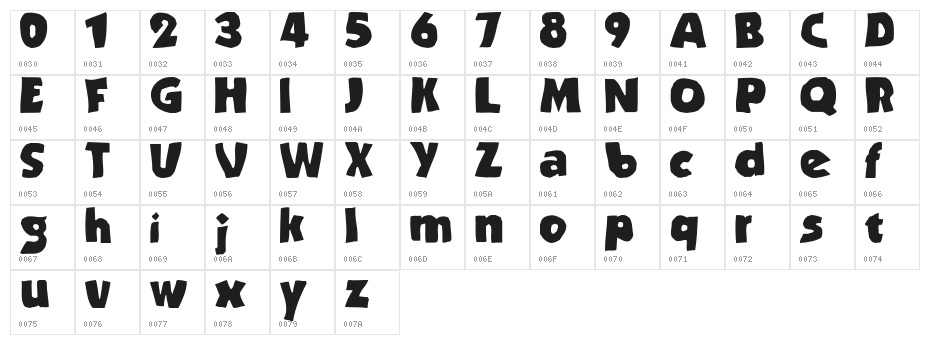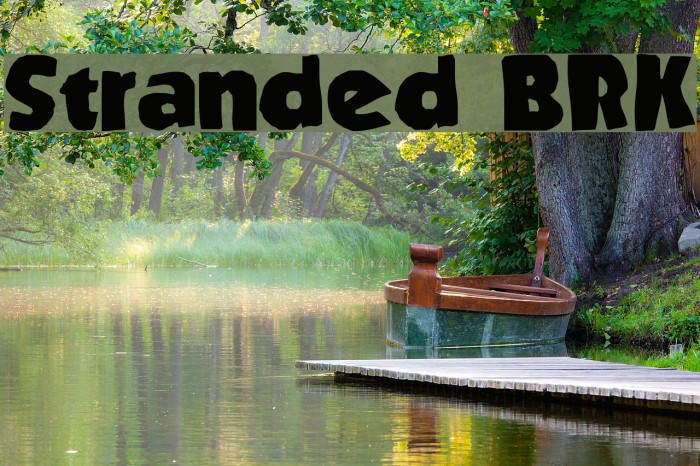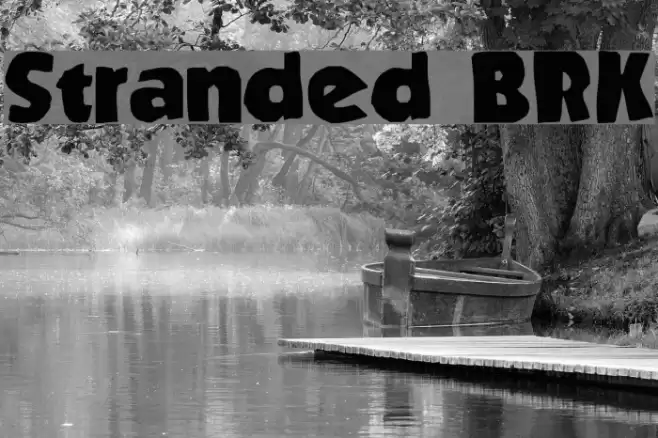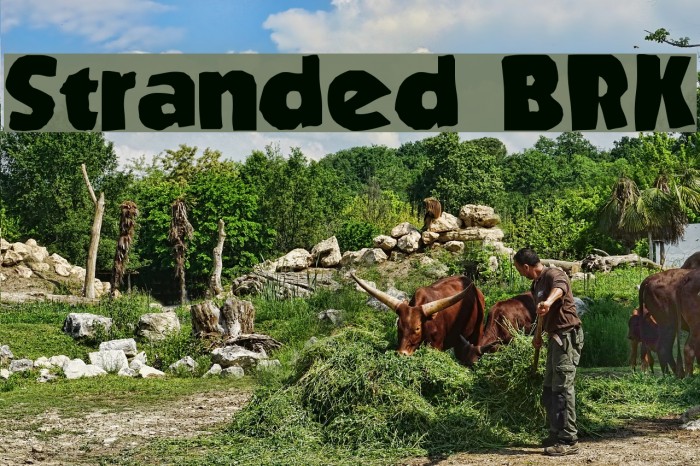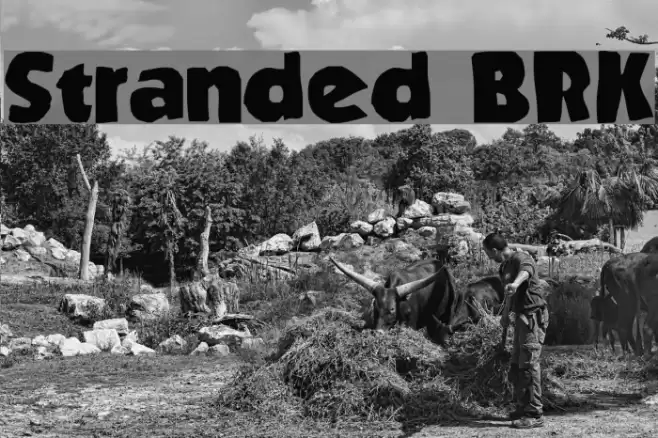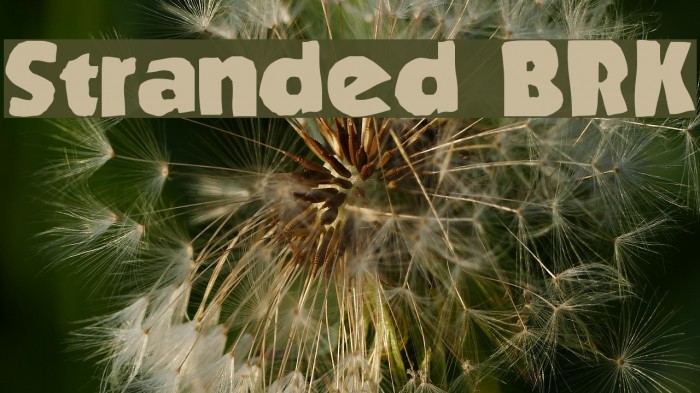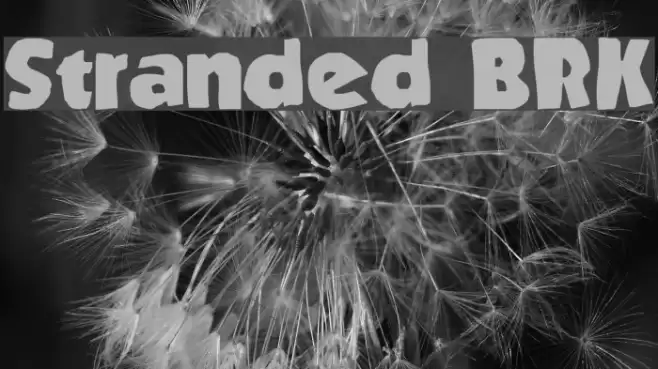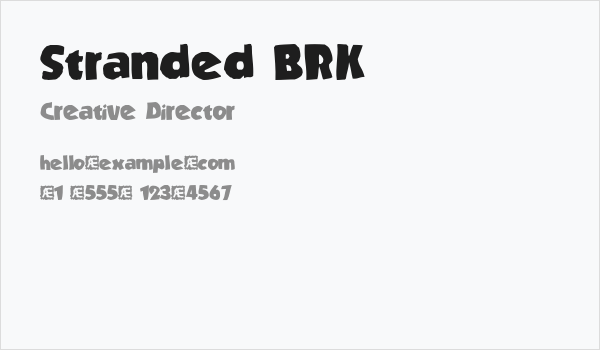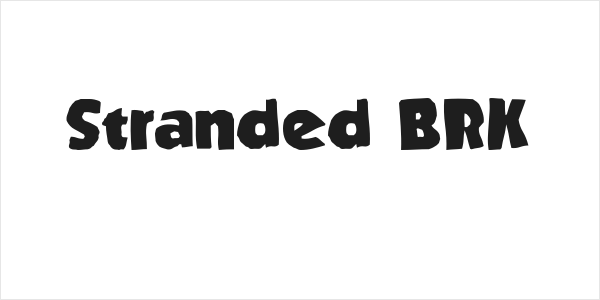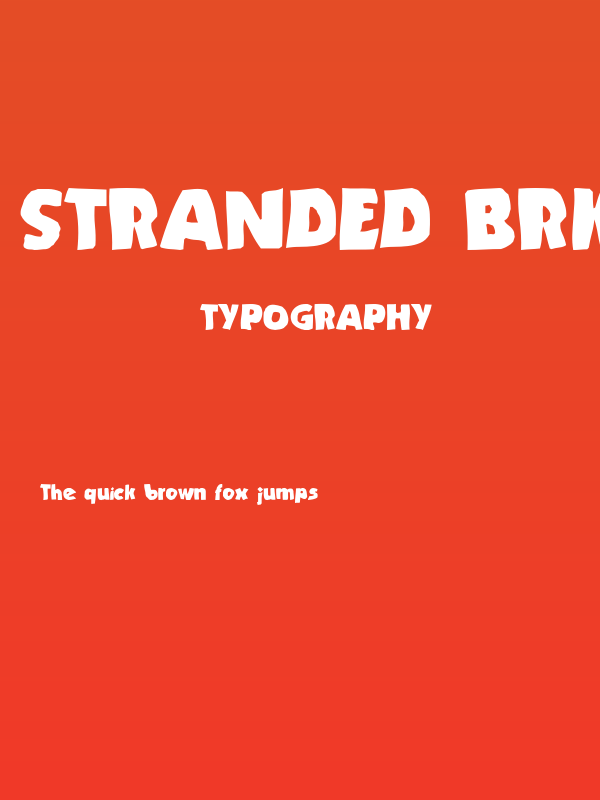
Stranded BRK Font
Stranded BRK Description
This font features a bold and playful design with irregular, jagged edges that give it a hand-drawn, artistic feel. The characters are thick and substantial, making them highly visible and impactful. The uppercase and lowercase letters maintain a consistent style, with the uppercase being slightly more pronounced. Numbers and special characters follow the same bold and quirky design, ensuring uniformity across all text elements. This font's unique style makes it stand out, perfect for creative projects that require a touch of whimsy and boldness.
| Proposed Projects | Ideal for posters, children's books, comic strips, and creative branding projects. |